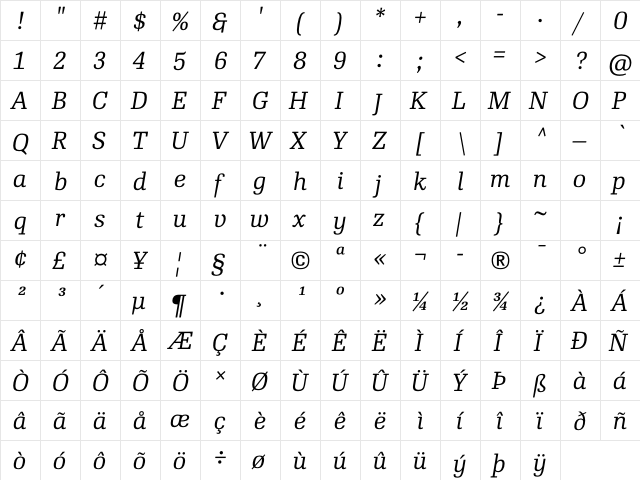
RePublic Book Regular Italic
Design Context for RePublic Book Typeface
RePublic Book offers clean, dependable letterforms without strong stylistic allegiance, making it a practical choice for designers who need flexibility. Its italic angle brings a sense of urgency and motion to the letterforms.
Pro Tip: Try RePublic Book for annotation and caption copy alongside an upright companion — the contrast in angle creates a dynamic but ordered typographic system.